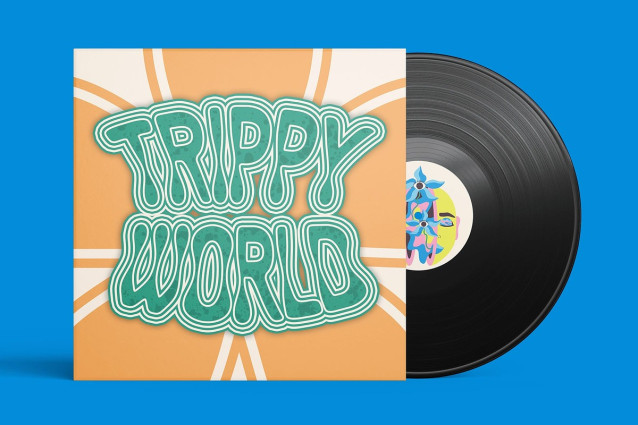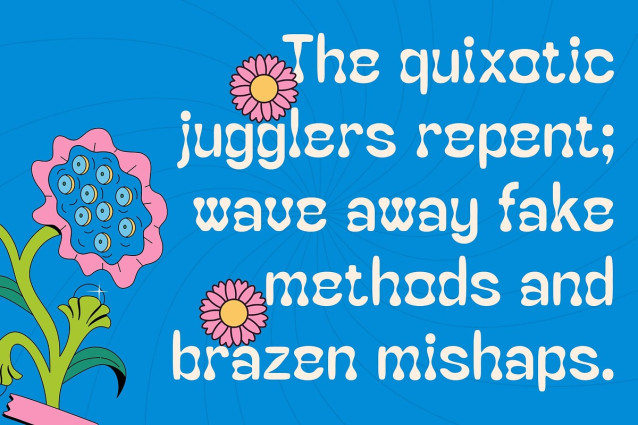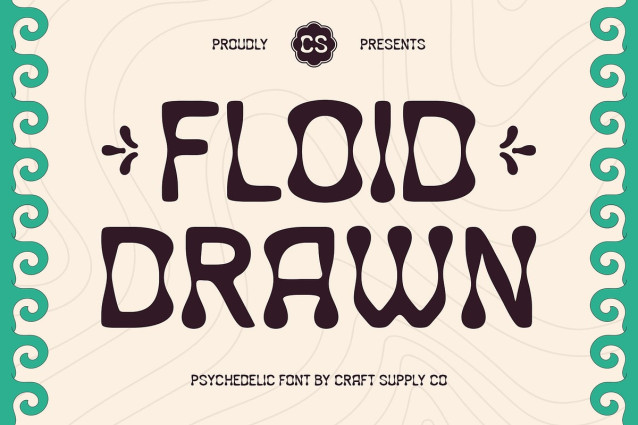
CS Floid Drawn Font
CS Floid Drawn is a modern display font inspired by psychedelic aesthetics, with groovy letterforms and fluid curves that channel a sense of freedom and vibrant creativity. Its unconventional shapes capture the essence of visual experimentation, ideal for projects that crave energy and originality.
Funky Vibe with Drawn Personality Infused with a drawn effect, the font gains a hand-crafted, raw feel that adds to its expressive charm. This artistic texture enhances its funky character and introduces a sense of spontaneity, perfect for designers looking to inject personality into their work.
Perfect for Bold and Experimental Designs From music-related graphics to experimental posters and festival branding, CS Floid Drawn thrives in settings where boldness and uniqueness are celebrated. It draws attention and encourages curiosity, making it a great fit for any project that dares to be different.
Creative Power for Visual Impact CS Floid Drawn is not just a font—it’s a visual experience. With its psychedelic forms and hand-drawn style, it’s designed to create impact and infuse your work with imaginative energy. Use it to amplify the attitude of your message and push your design boundaries.